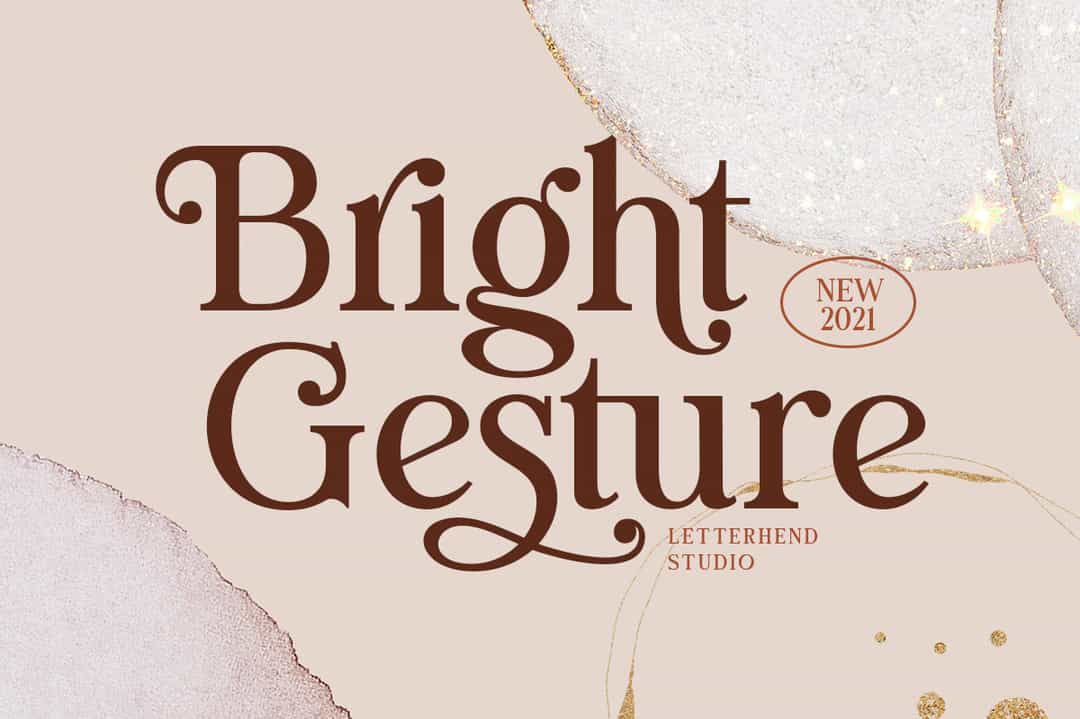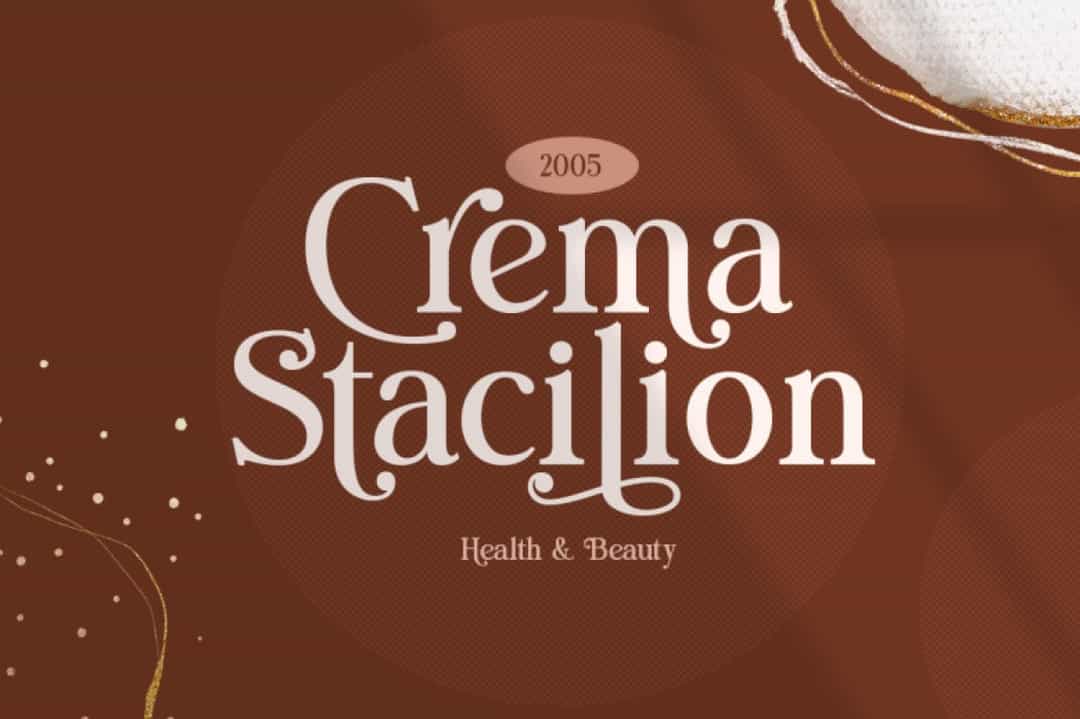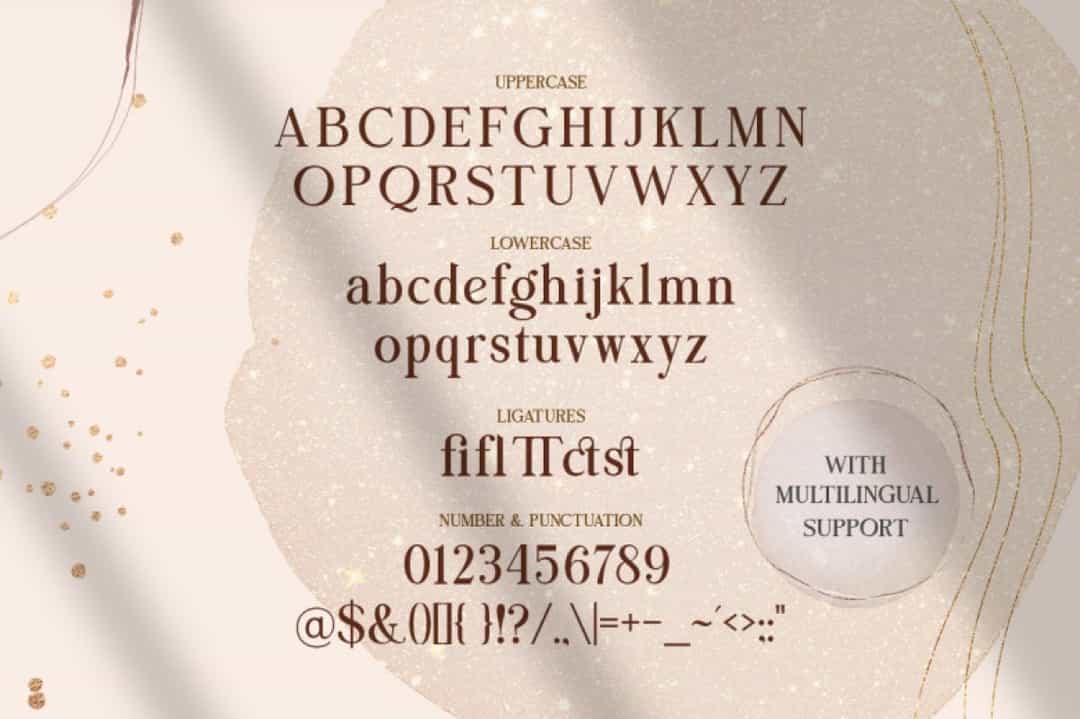
Bright Gesture Serif Font with Swashes stands out from its peers by featuring stylistic ligatures and alternates that give this font its distinct character, standing out from others by setting itself apart from them. It can be used for logos as well as formal designs like labels, invitations or magazines; greeting / wedding cards packaging fashion/makeup stationery as well as novels/books; as well as for advertising purposes of any sort.